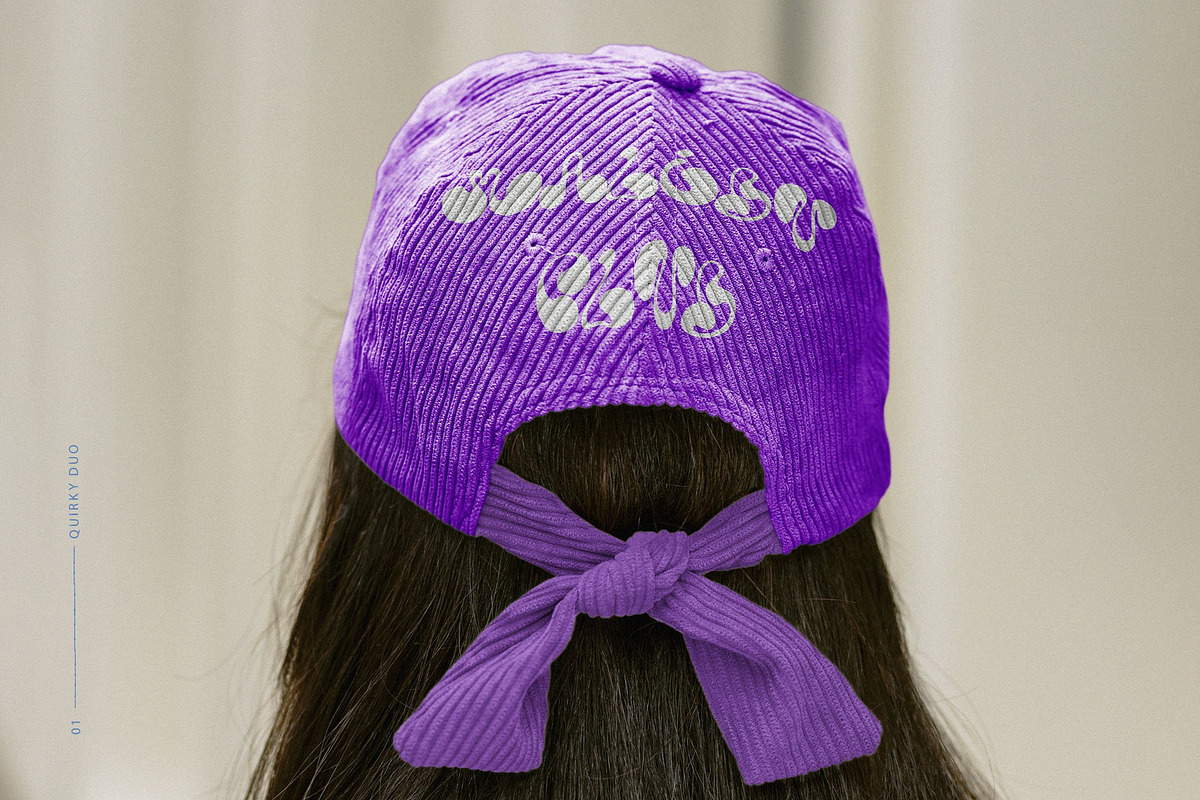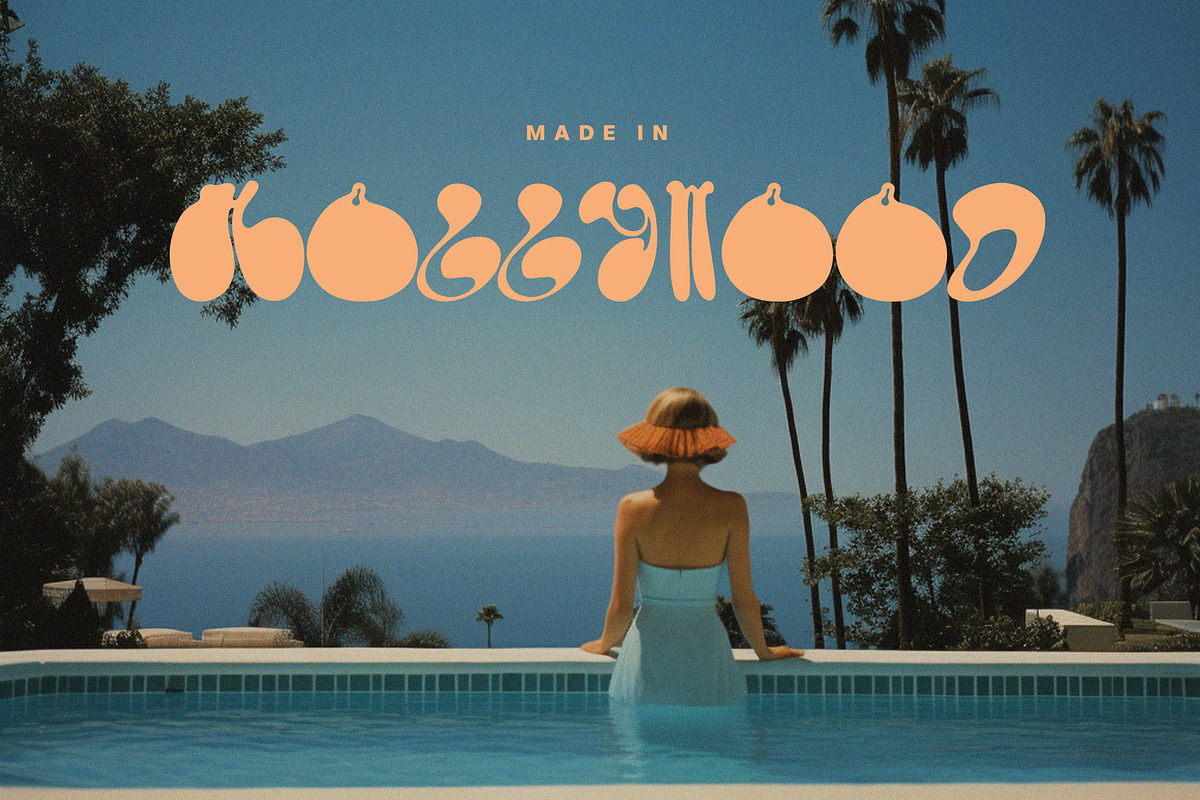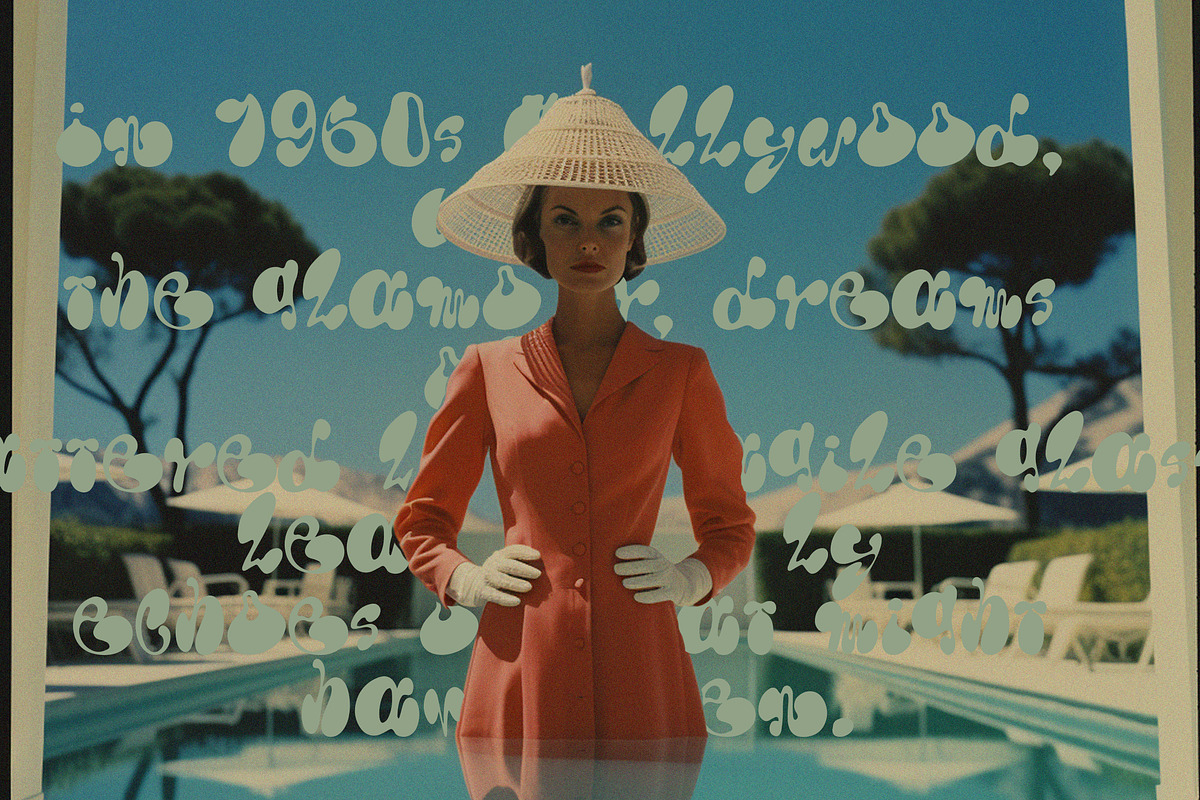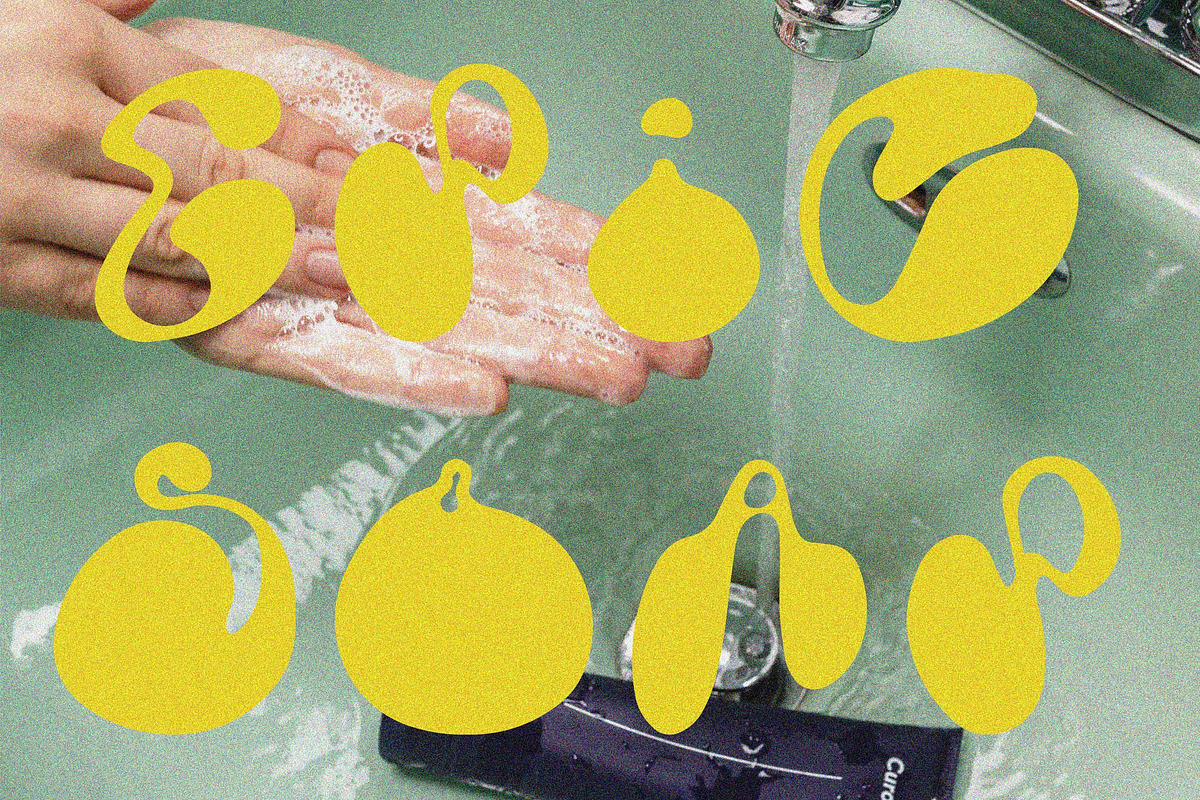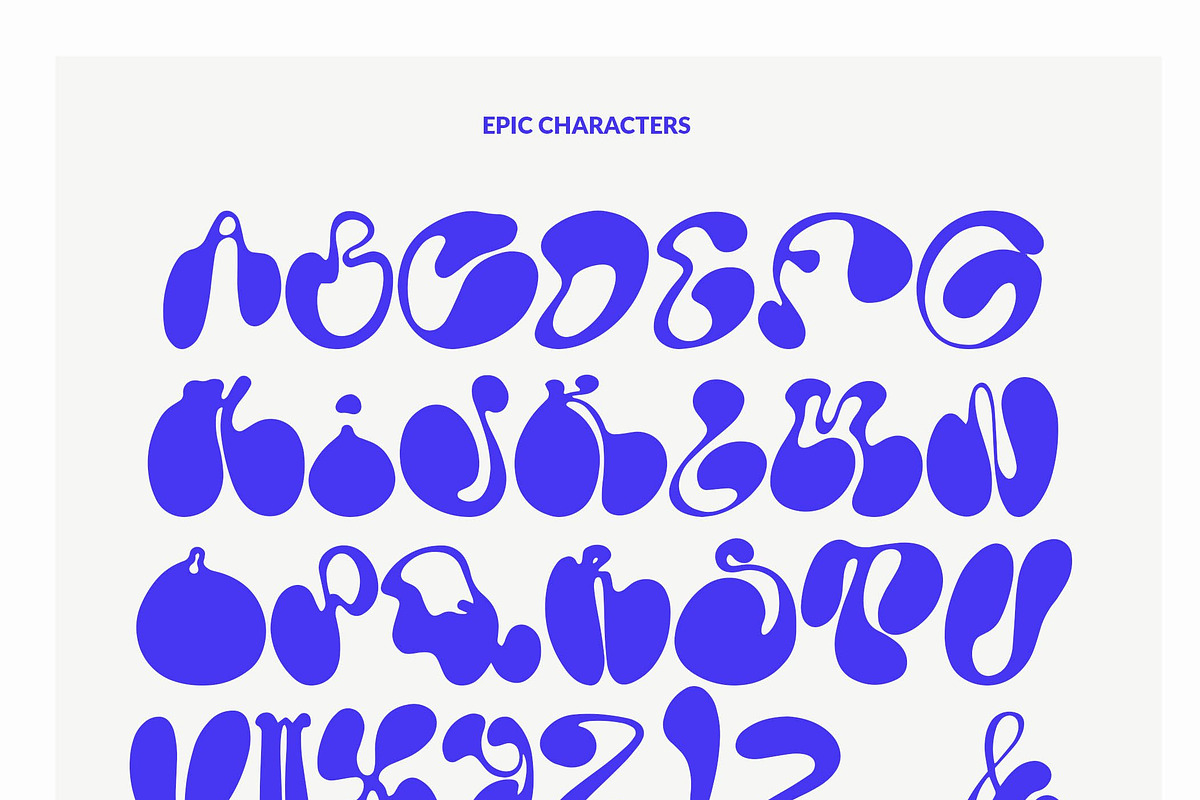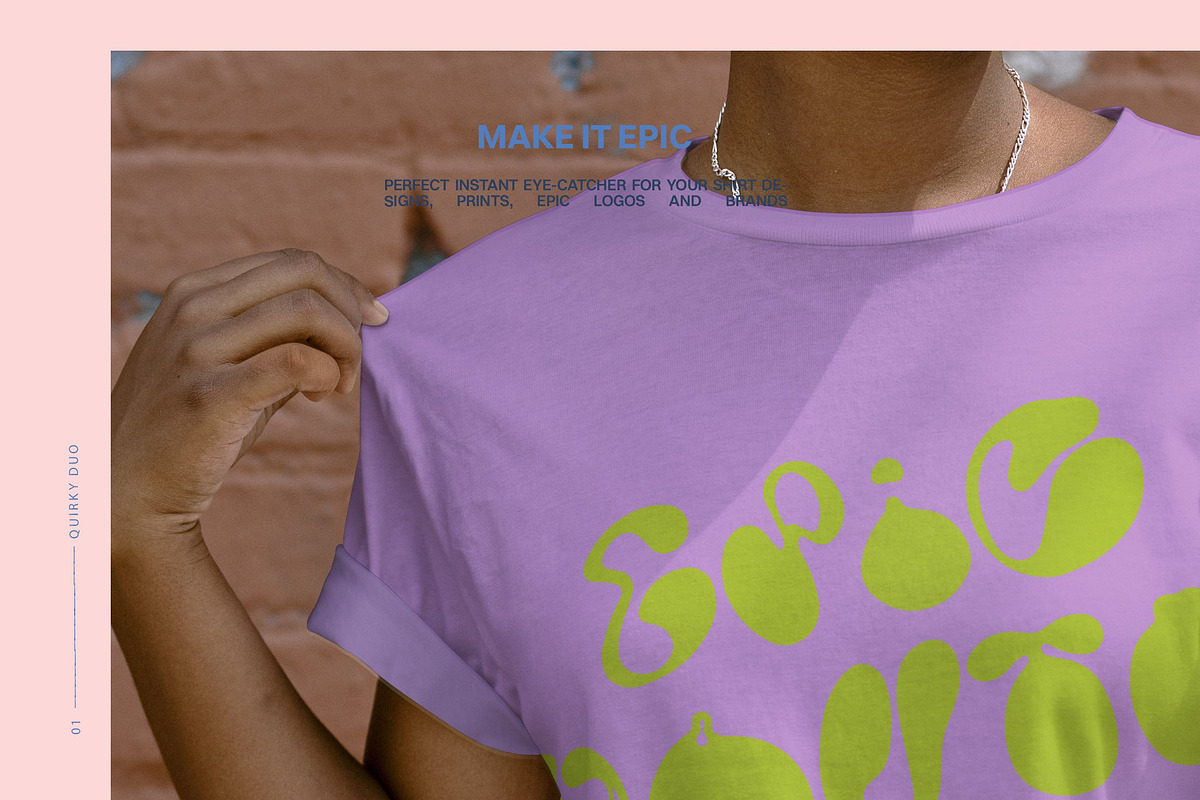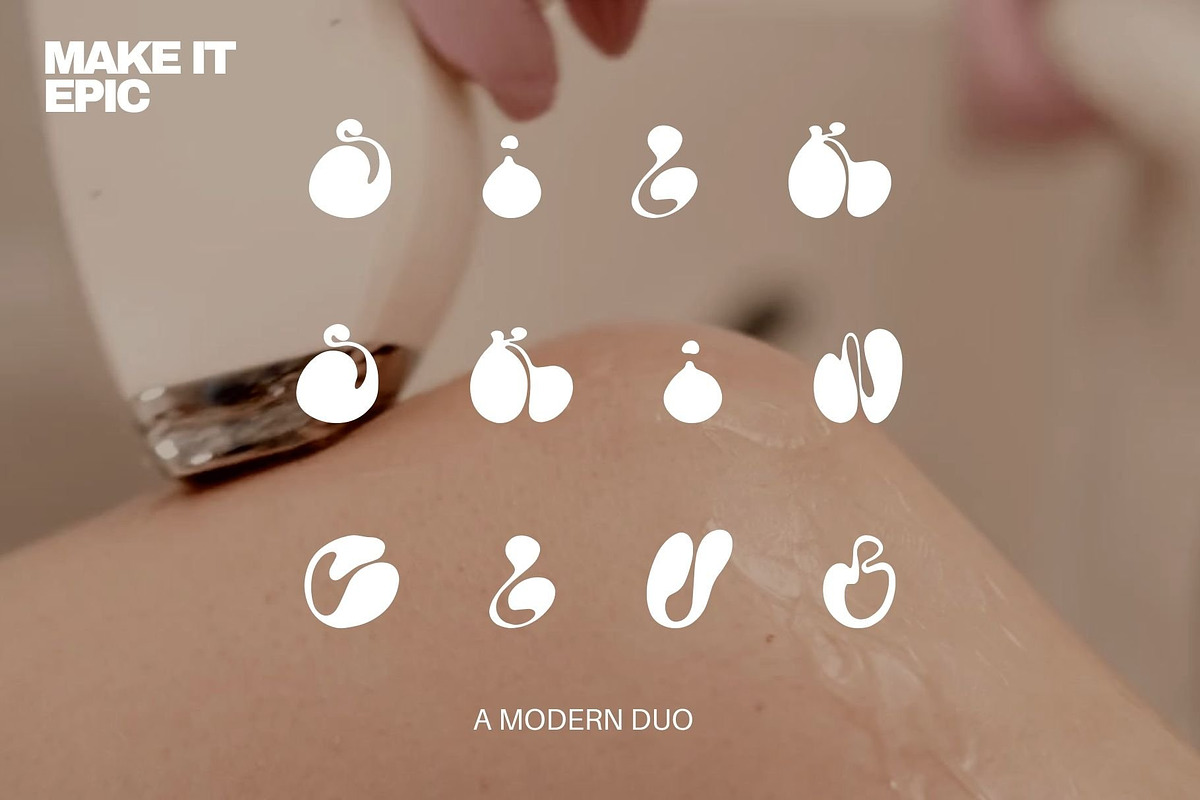
Sunset Icon Retro Bubble Font Duo
A retro bubble font duo inspired by 60's and 70's icons
A bit of 60's Hollywood nostalgia and vintage luxe for breathtaking designs: This bold retro display font captures cinematic glamour of bygone eras. Revive moments of film history and the Sunset Strip icons - their legendary parties, silver screen glamour and the lingering magic of that golden age.
Perfect for retro branding, website headings, bold headlines, poster design, editorial layouts, bold and modern packaging design and social media graphics that instantly catch the eye.